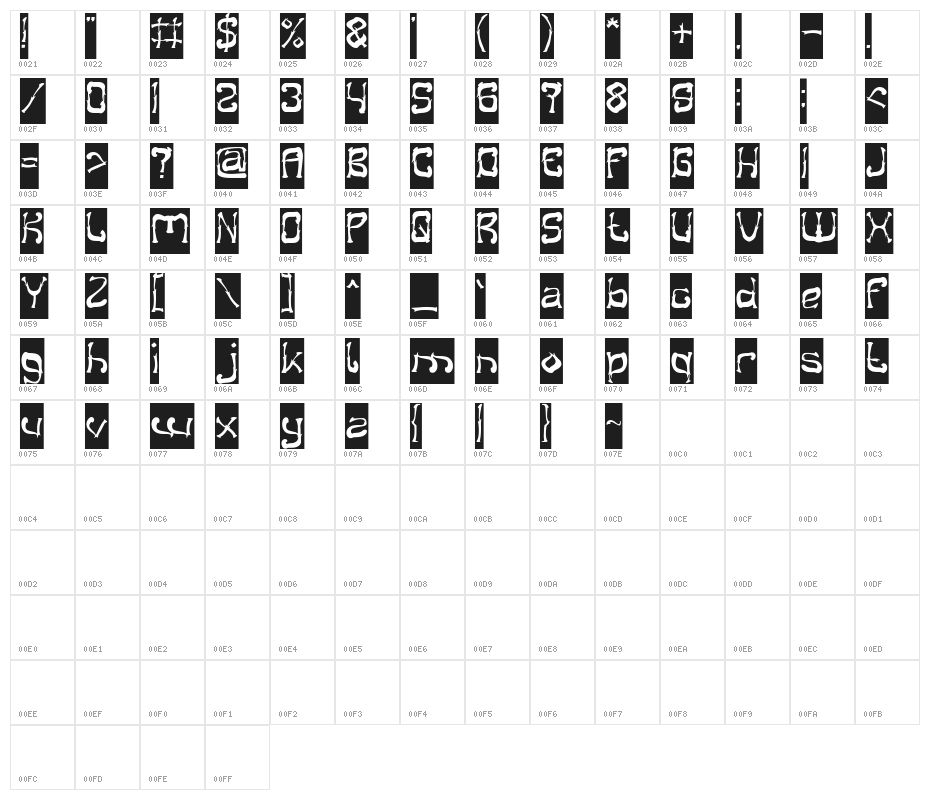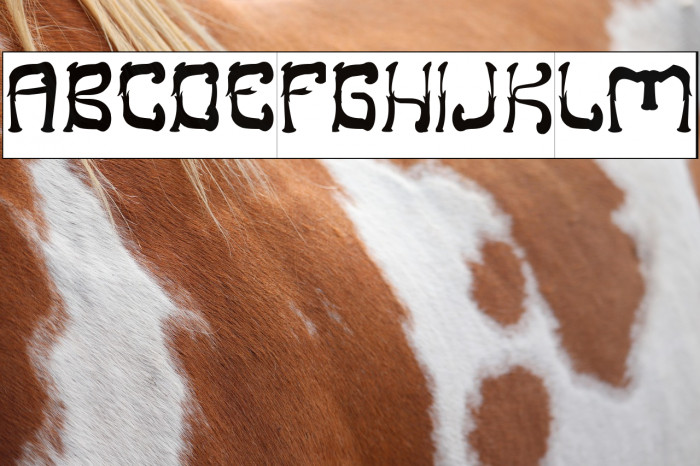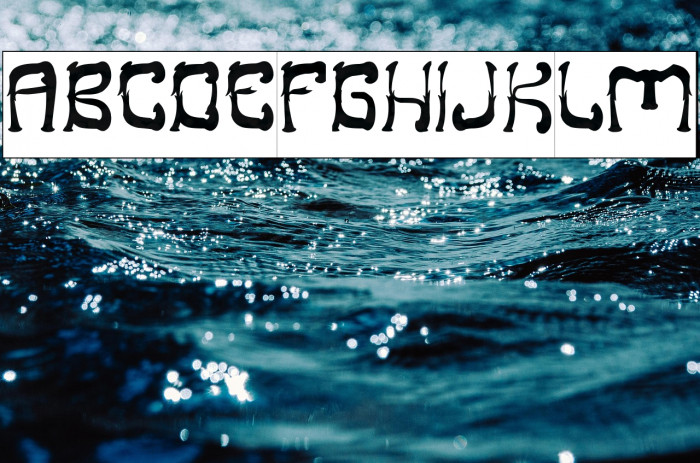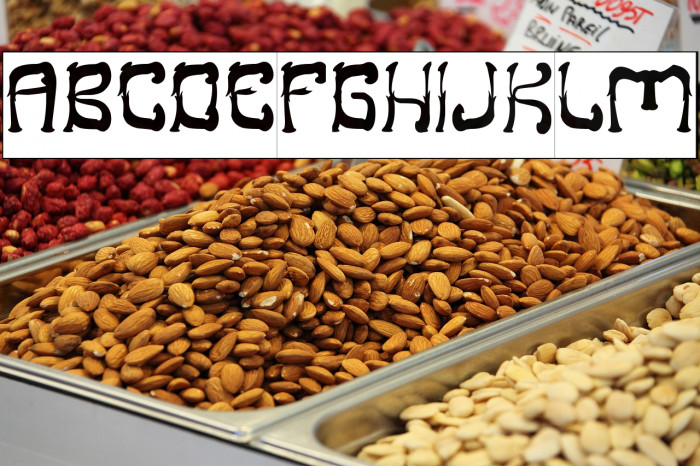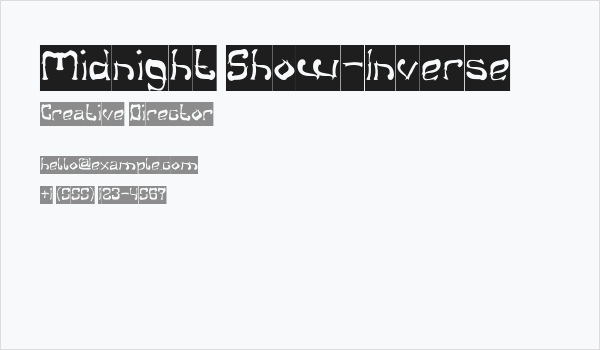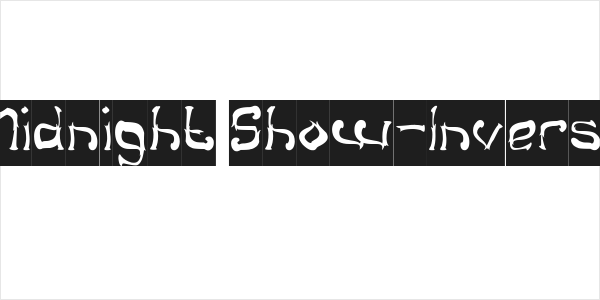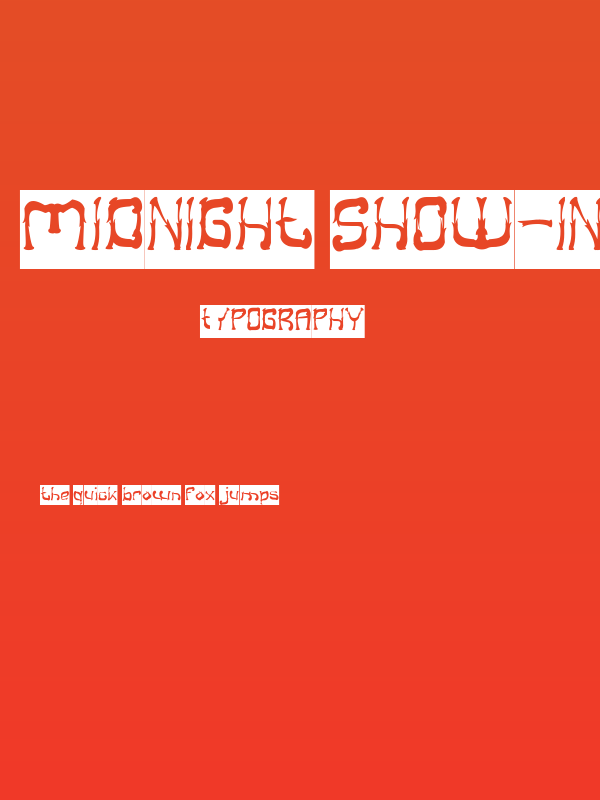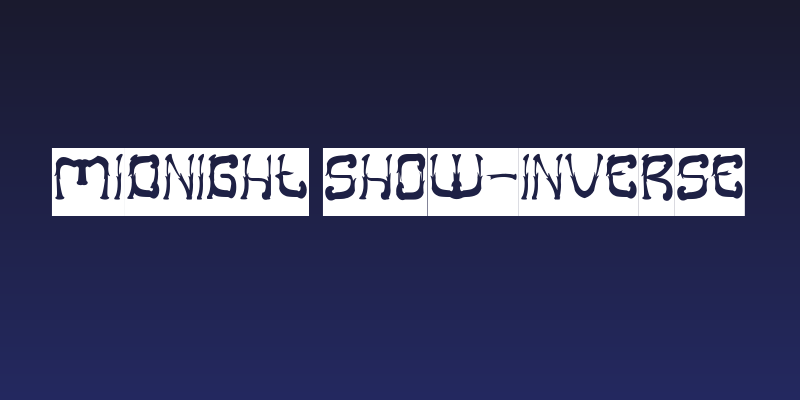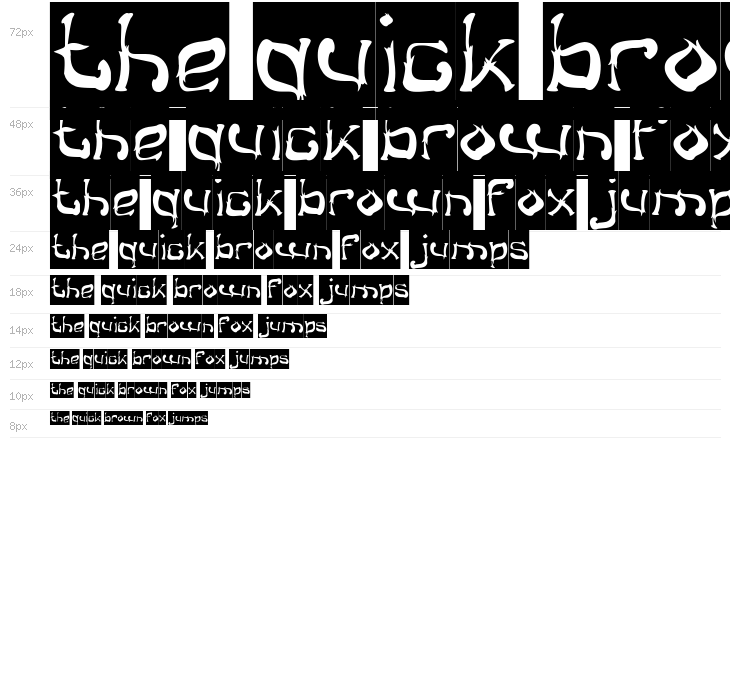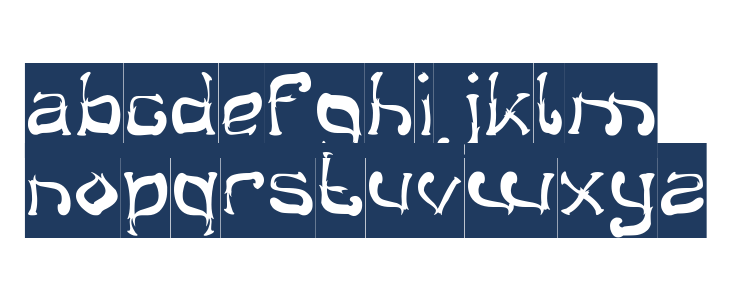
Midnight Show-Inverse Font
Midnight Show-Inverse Description
This font features a unique and artistic design with a bold, decorative style. The characters have an organic, flowing appearance, reminiscent of brush strokes or calligraphy. The uppercase and lowercase letters maintain a consistent theme, with exaggerated curves and varying line thicknesses that create a dynamic visual effect. The numbers and special characters follow the same artistic approach, ensuring a cohesive look across all glyphs. This font is ideal for projects that require a distinctive and eye-catching typeface, such as posters, album covers, or branding materials.
| Proposed Projects | Ideal for posters, album covers, branding, and artistic projects. |